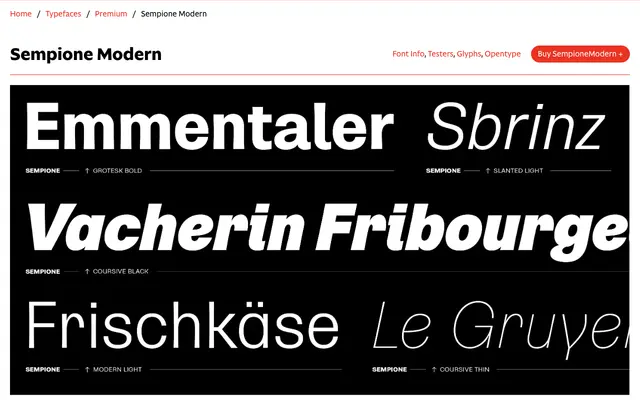
Sempione Modern
CAST · Andrea Amato – Tipiblu · 2009
A Swiss-influenced sanserif by Andrea Amato spanning seven weights with an oblique slanted style, small caps, old-style numerals and ligatures, produced between 2009 and 2019.
Drawing on early 20th-century Swiss typographic rationalism, the design favours consistent stroke widths and horizontal terminals rather than calligraphic variation. The family includes a variable font counterpart and an extensive OpenType feature set covering small caps, old-style and tabular figures, discretionary ligatures and alternate letterforms. Its companion, Sempione Grotesk, offers a true cursive italic where Modern's slanted style simply inclines the upright construction unchanged.
A Latin-script sanserif drawing on Swiss modernist and early 20th-century typographic traditions, with horizontal terminations and rational proportions that align it with humanist and neo-grotesque lineage rather than strict geometric construction.